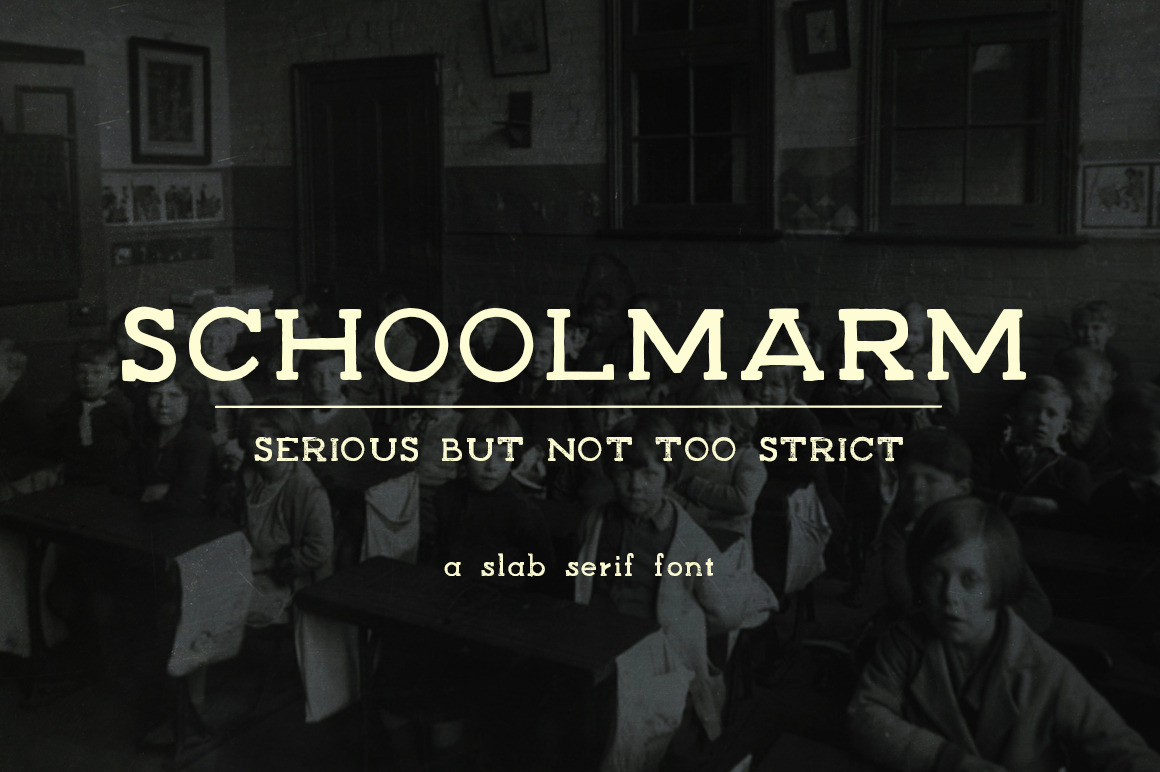
Schoolmarm Typeface
Schoolmarm is a bold, slab serif font designed to emulate the screenprinted look of the "ABC's" on an old chalkboard. This font is serious - but not too strict. It's playful - yet ready to learn.